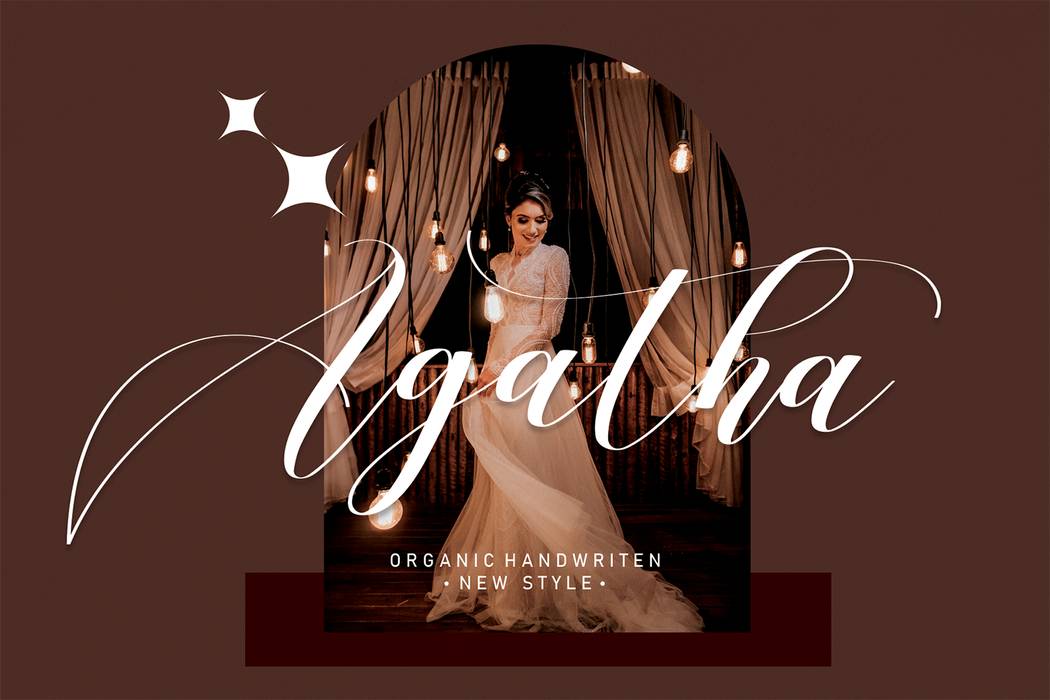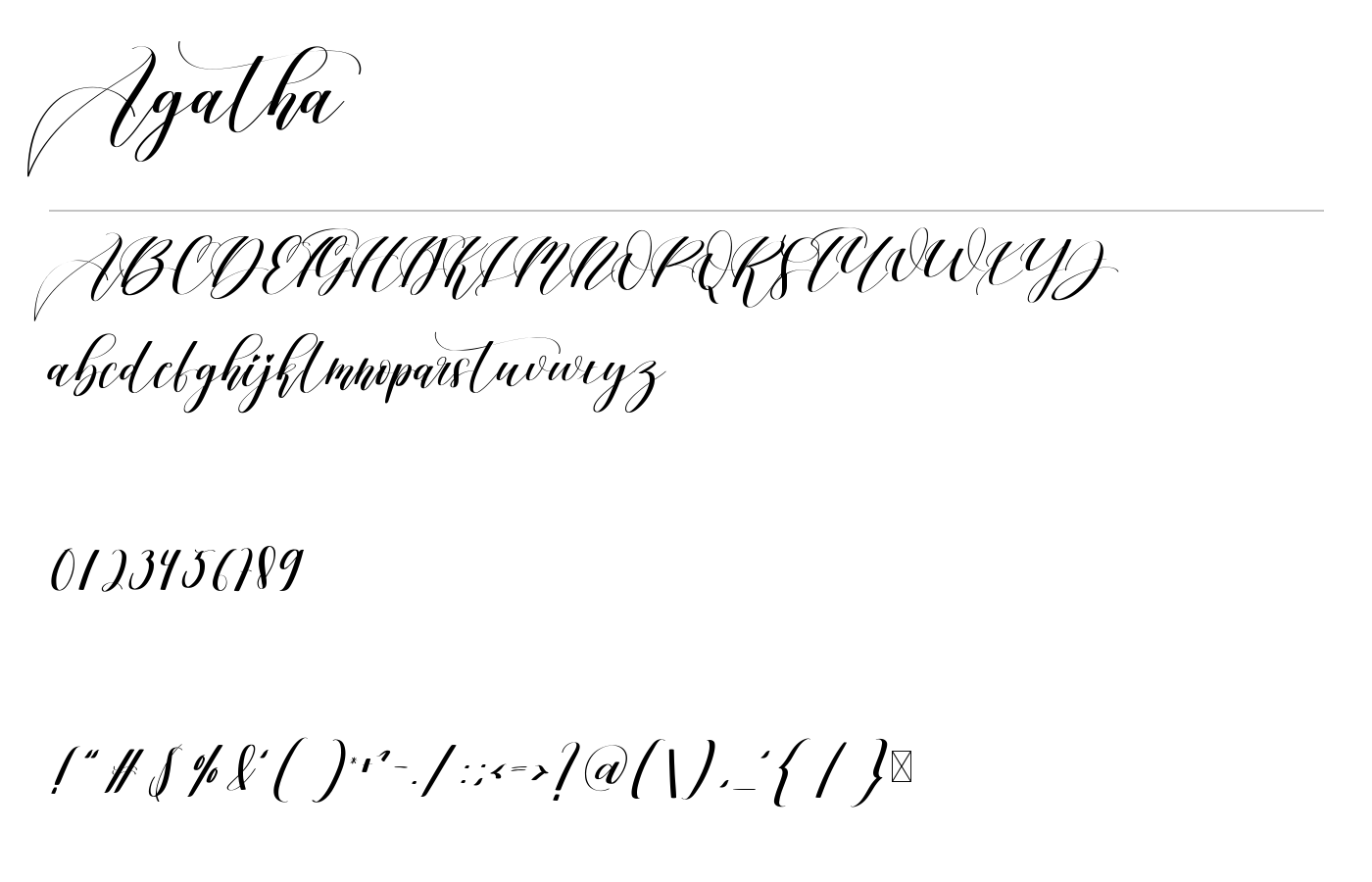
Agatha is an elegant script font characterized by its flowing, delicate strokes and high contrast between thick and thin lines. It features graceful uppercase and lowercase letters with stylish swashes and a sophisticated, handwritten feel, making it perfect for luxury branding, wedding invitations, and upscale editorial projects where a refined, artistic touch is desired.
Agatha Font
About Agatha Font